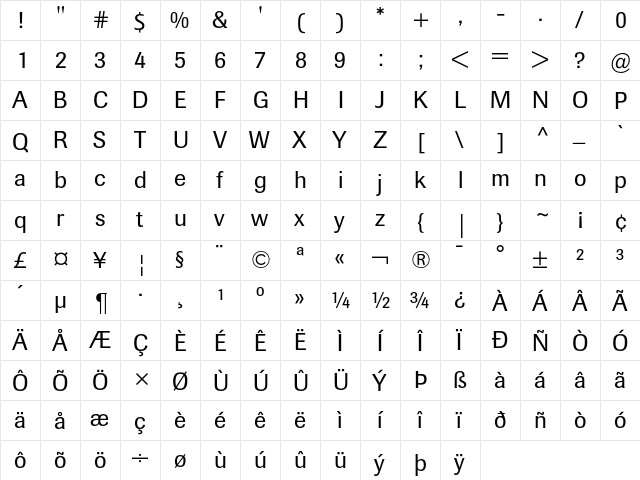
Imago Regular
Design Context for Imago Typeface
Imago offers clean, dependable letterforms without strong stylistic allegiance, making it a practical choice for designers who need flexibility.
Pro Tip: Pair Imago with a font of contrasting weight or personality to build a more expressive typographic hierarchy.